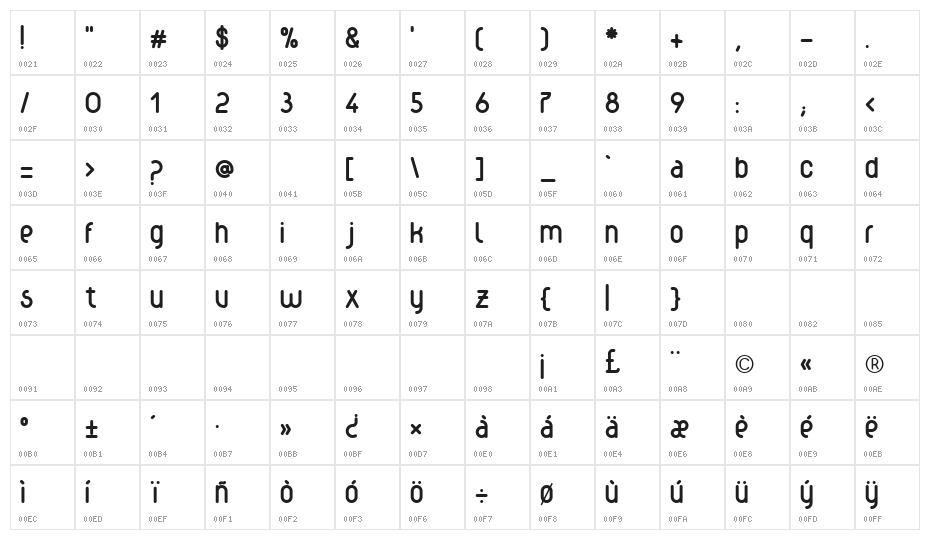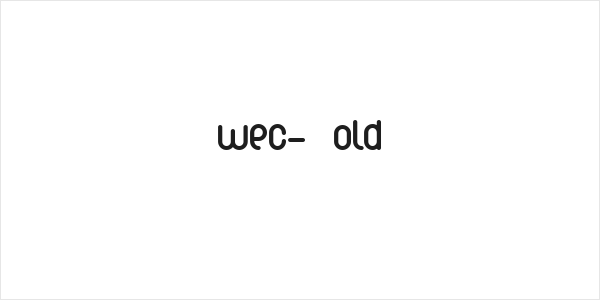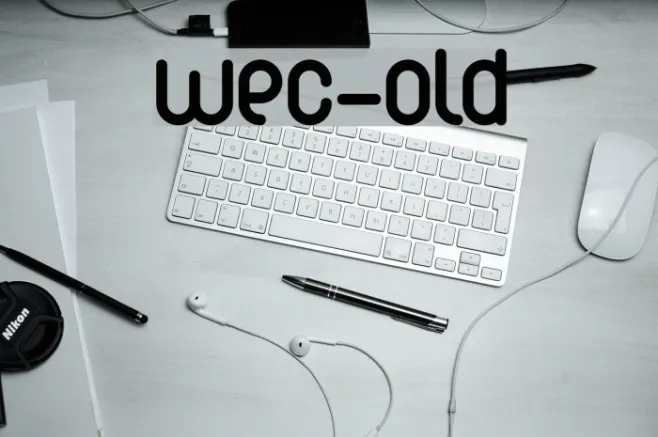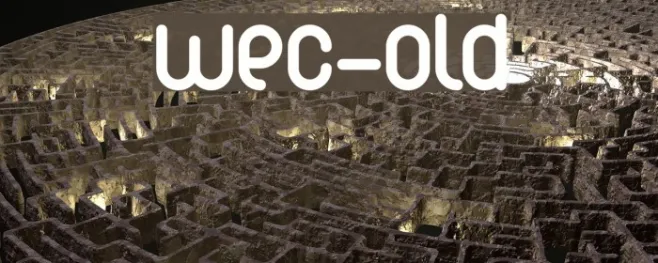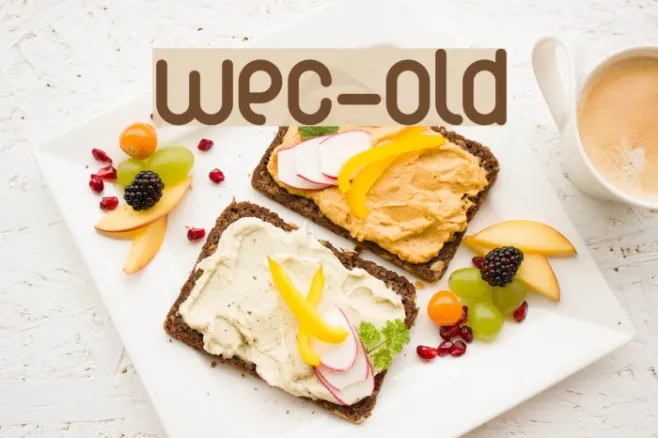
wec-Bold Font
wec-Bold Description
This font features a bold, rounded style with smooth curves and a modern aesthetic. The characters are evenly spaced, providing a clean and approachable look. The lowercase letters have a uniform height, contributing to a cohesive appearance. The numbers and special characters maintain the same rounded and bold characteristics, ensuring consistency across all elements. This font's simplicity and clarity make it versatile for various design applications.
| Use Case | Headlines, Logos, Digital Interfaces |
| Proposed Projects | Ideal for branding, signage, packaging, and digital interfaces where a friendly and modern look is desired. |